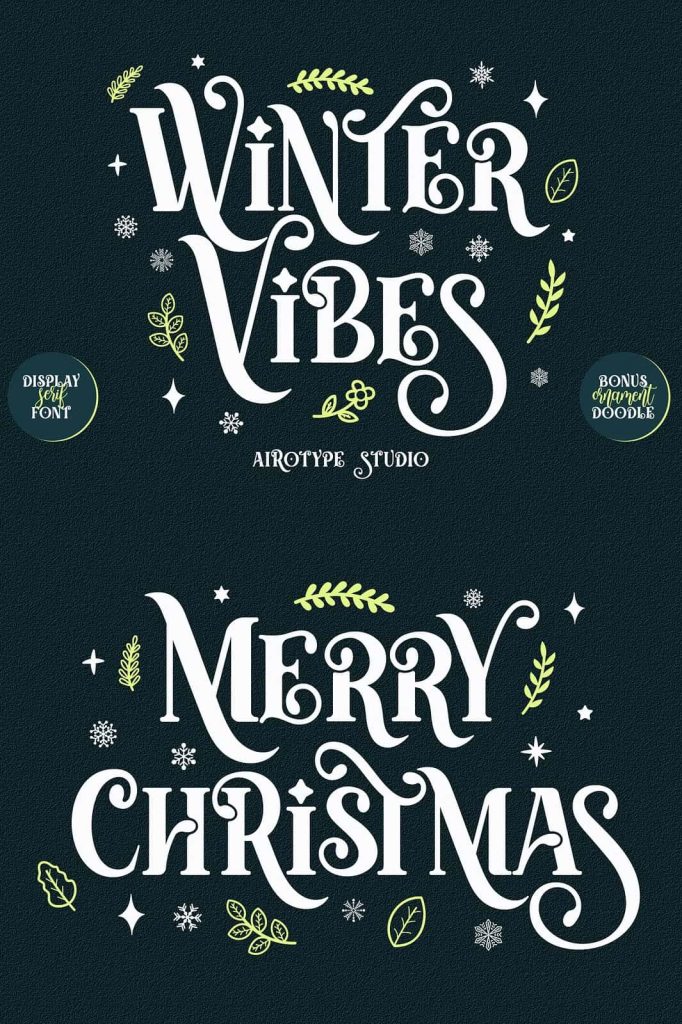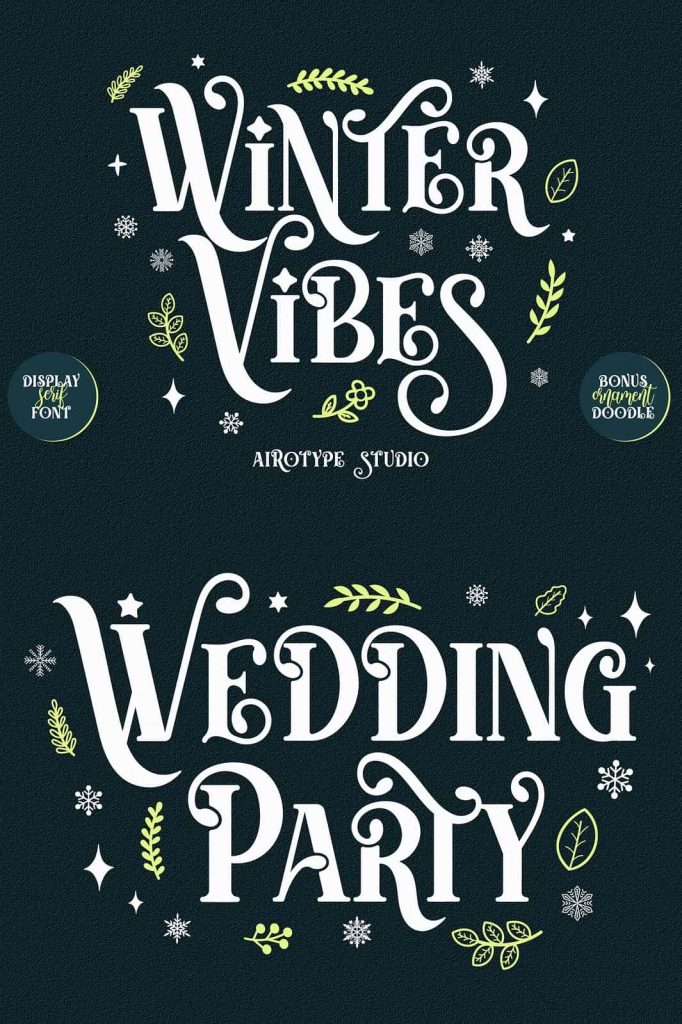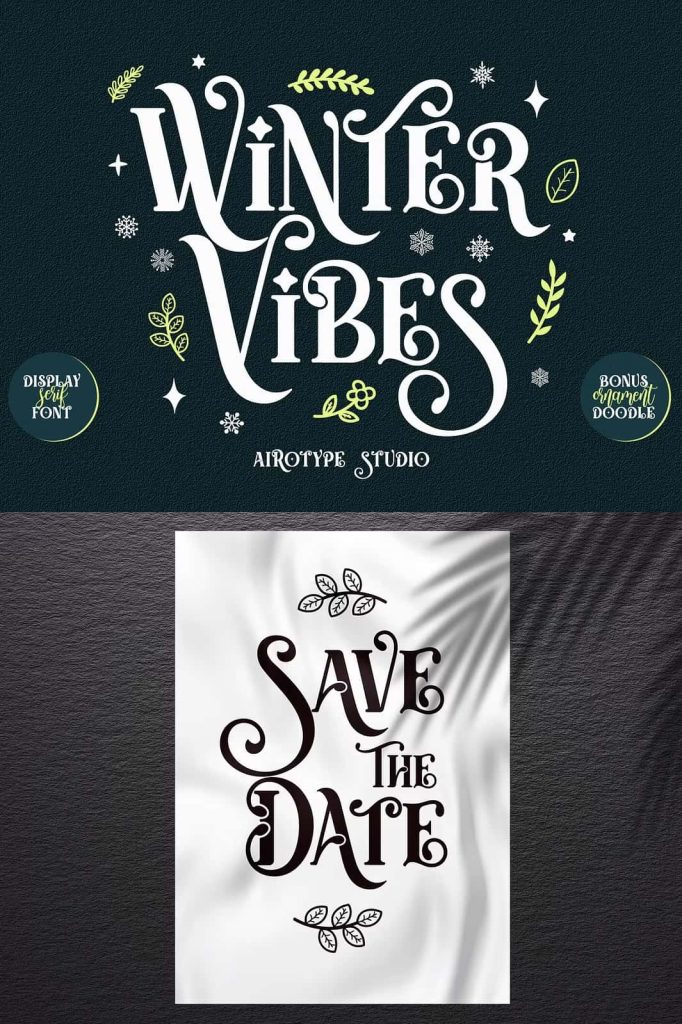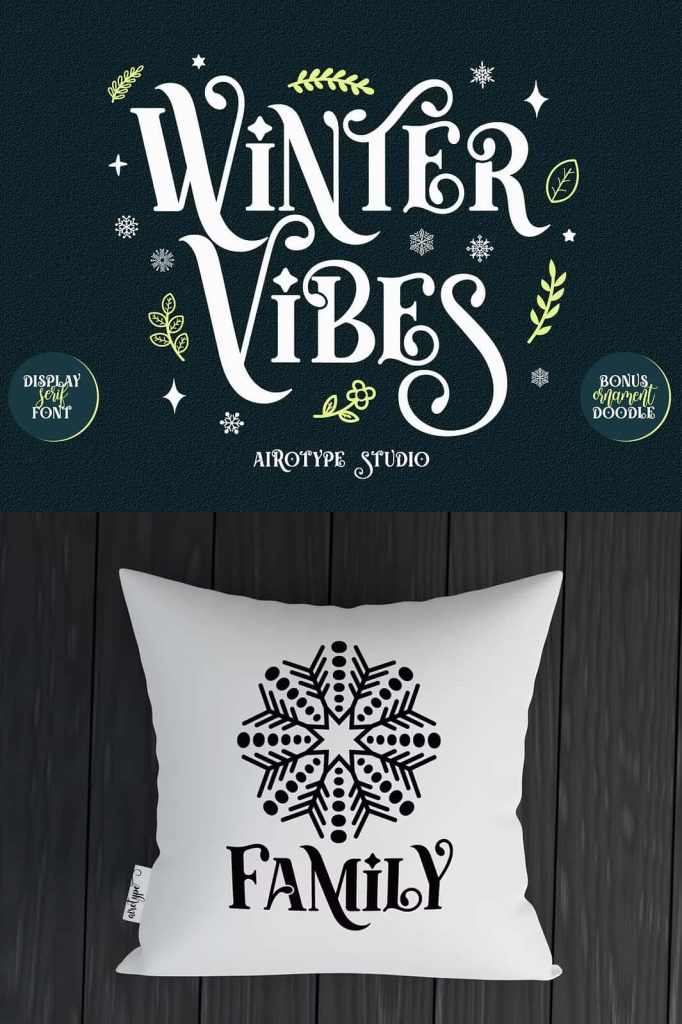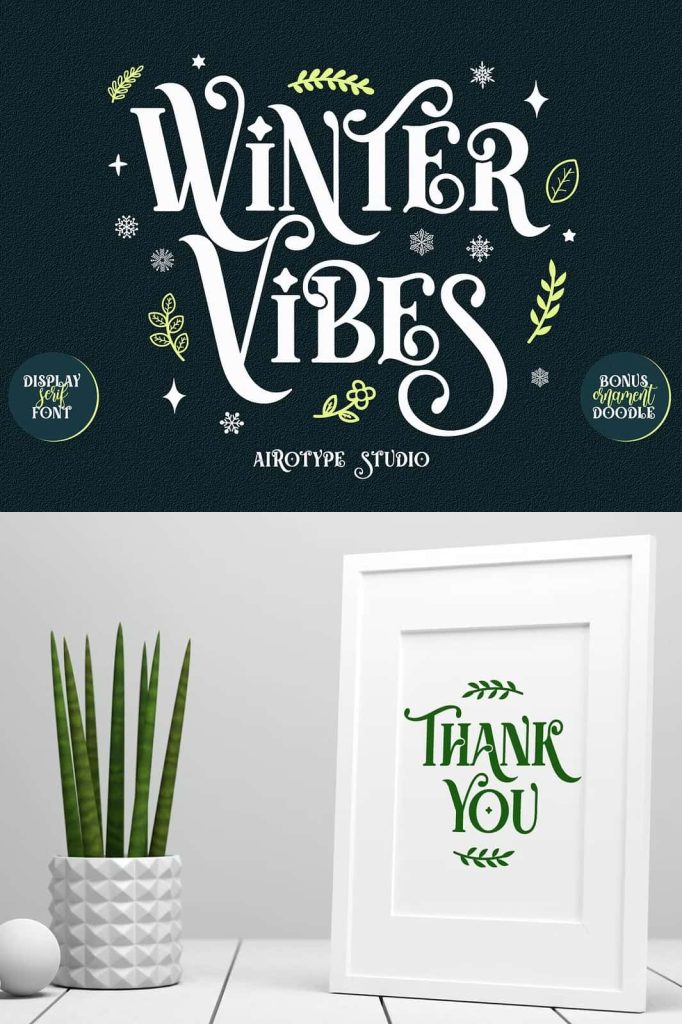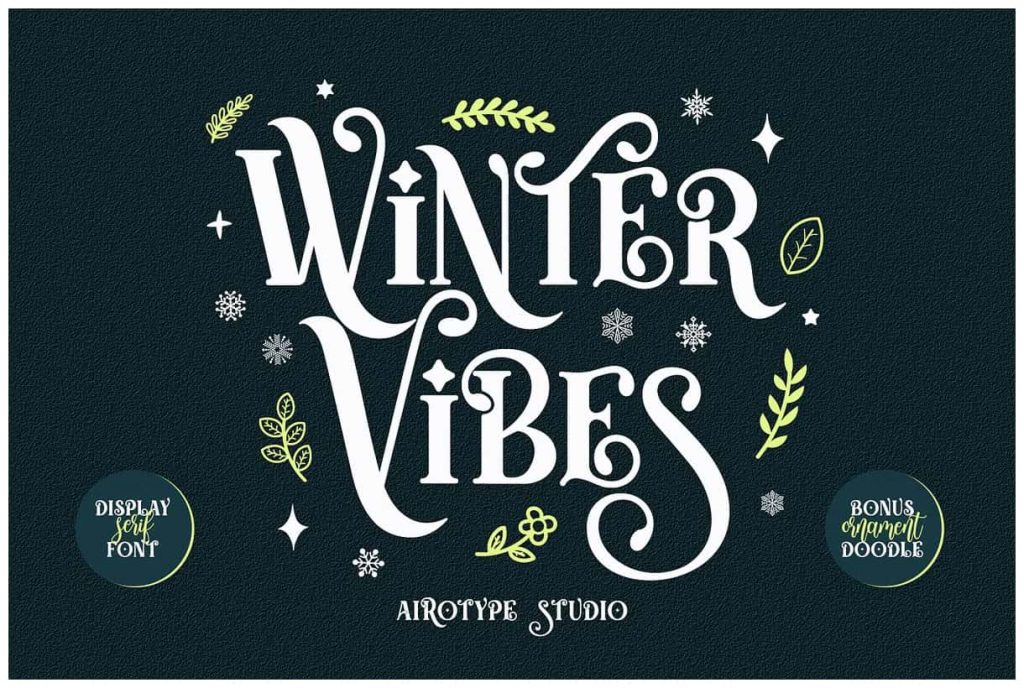
Winter Vibes – Modern All Caps SerifleastedMay 29, 2025Fonts Winter Vibes is modern and elegant display serif. This is all caps display serif font. Download